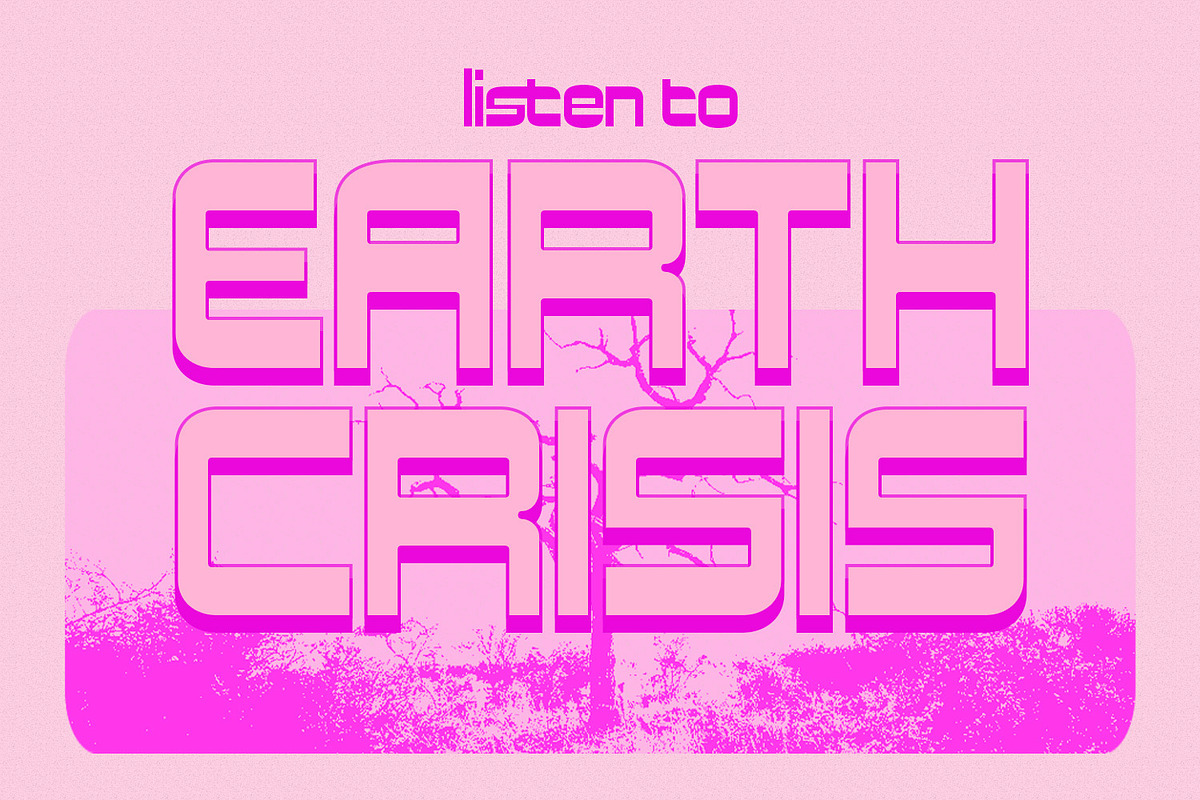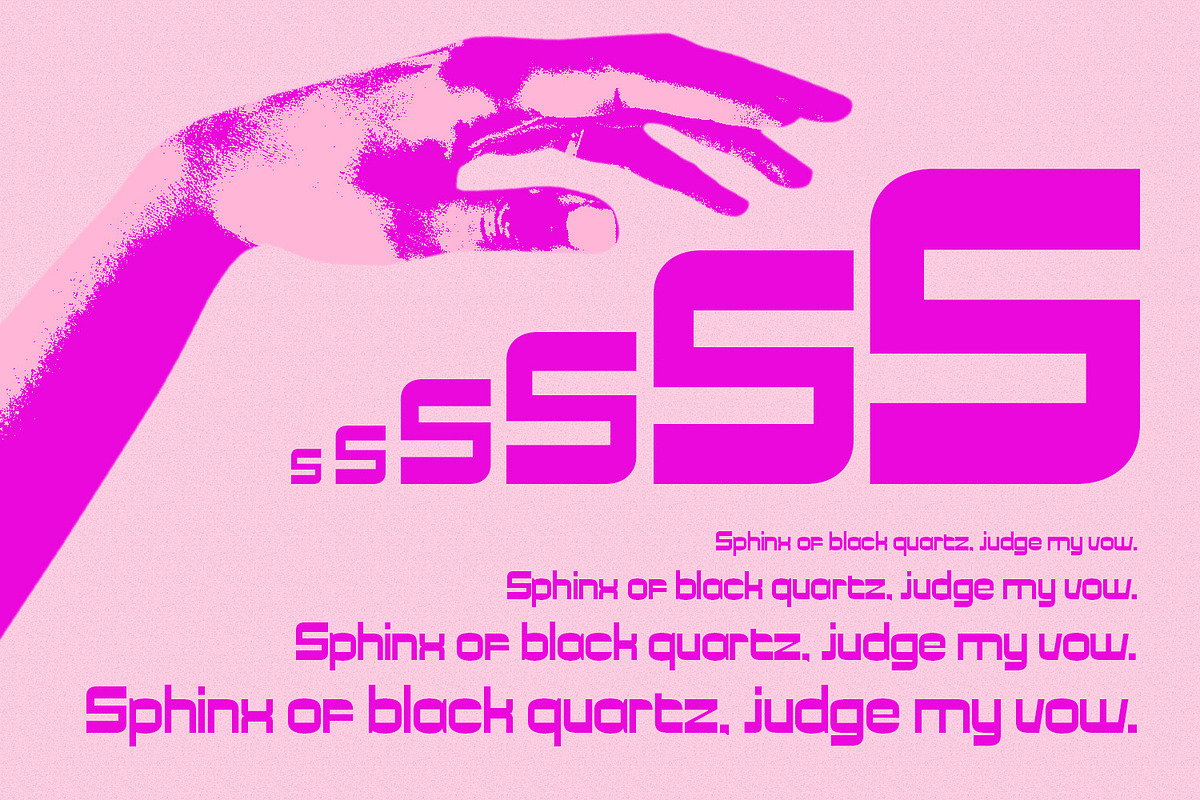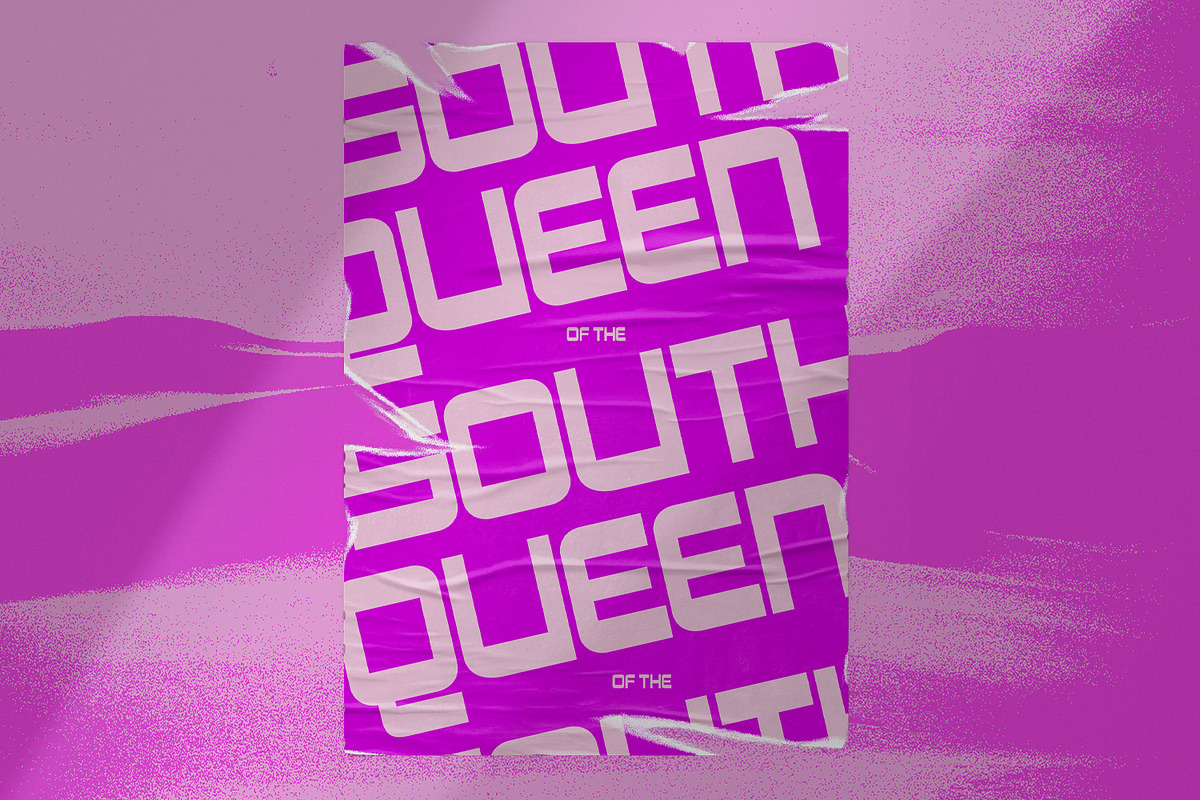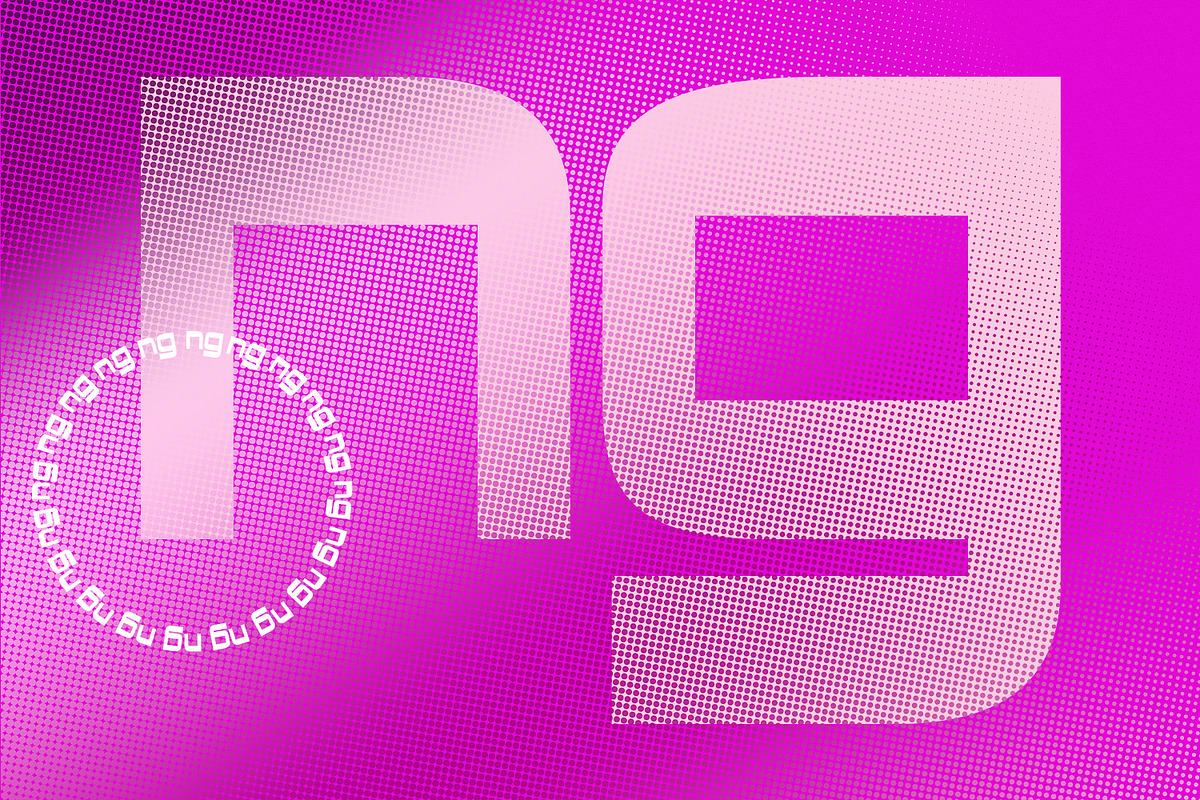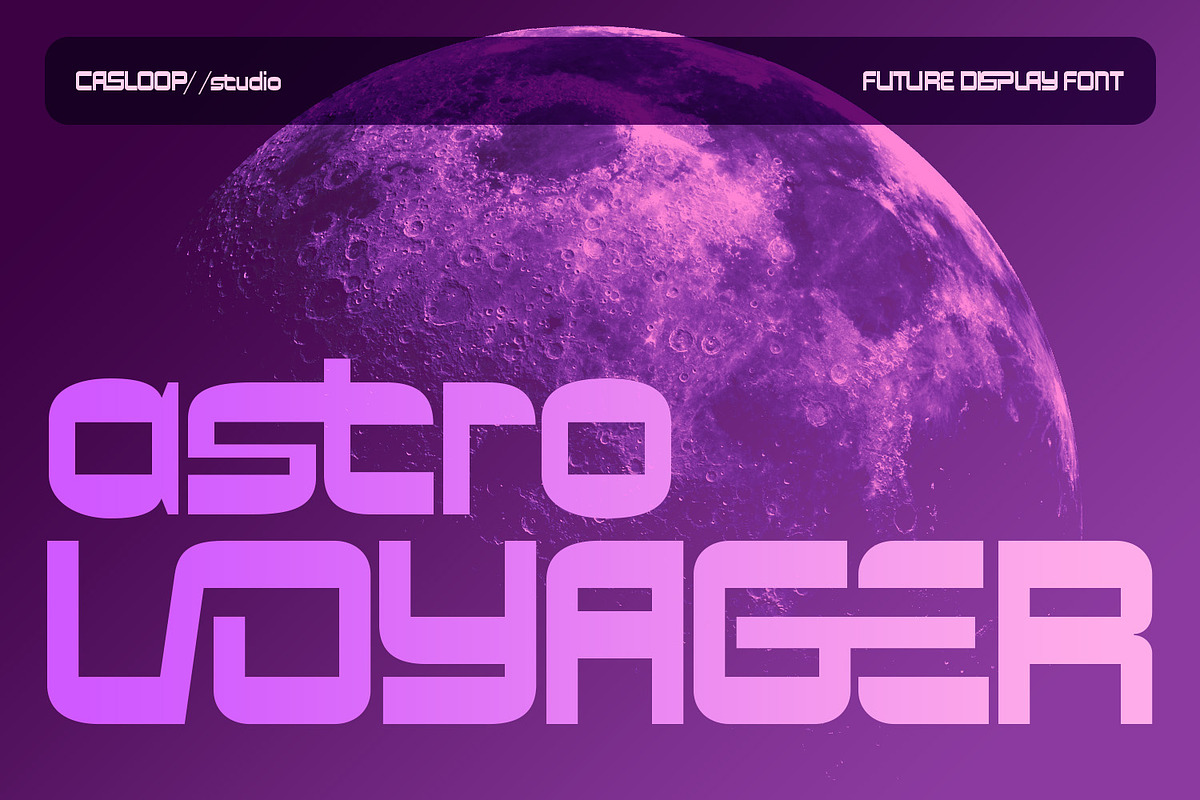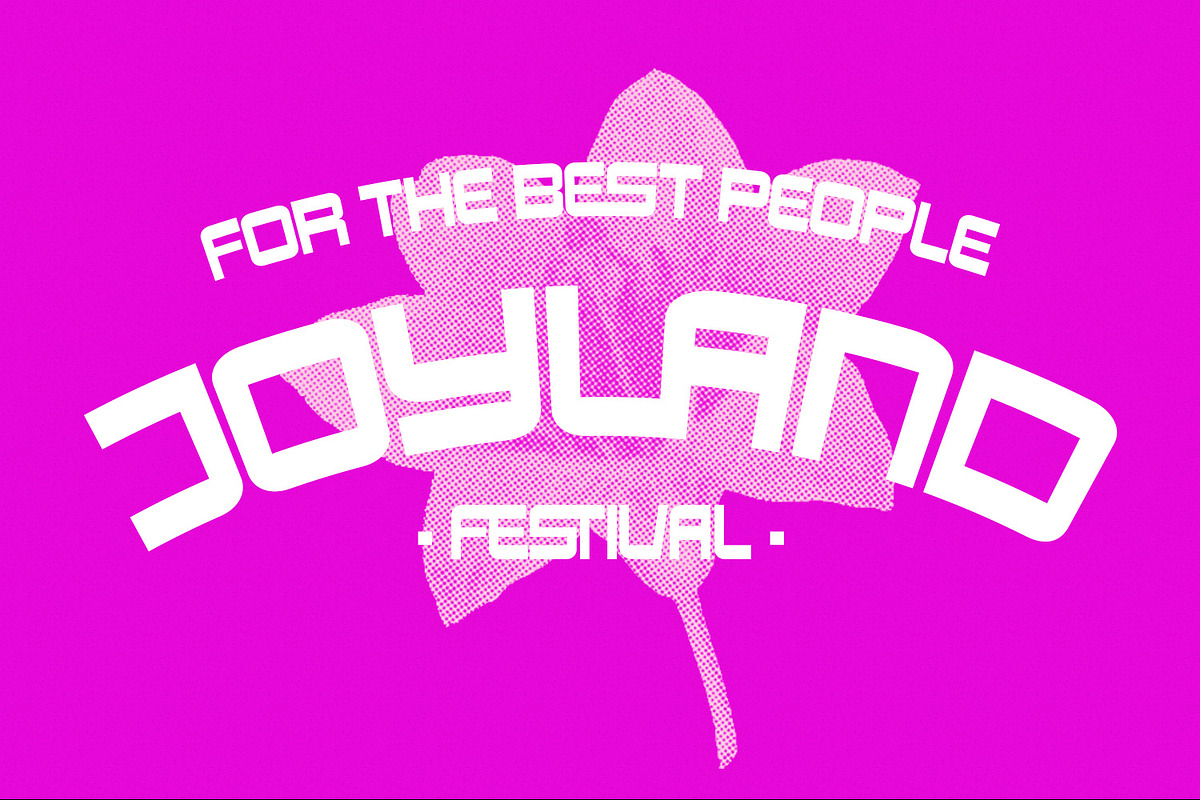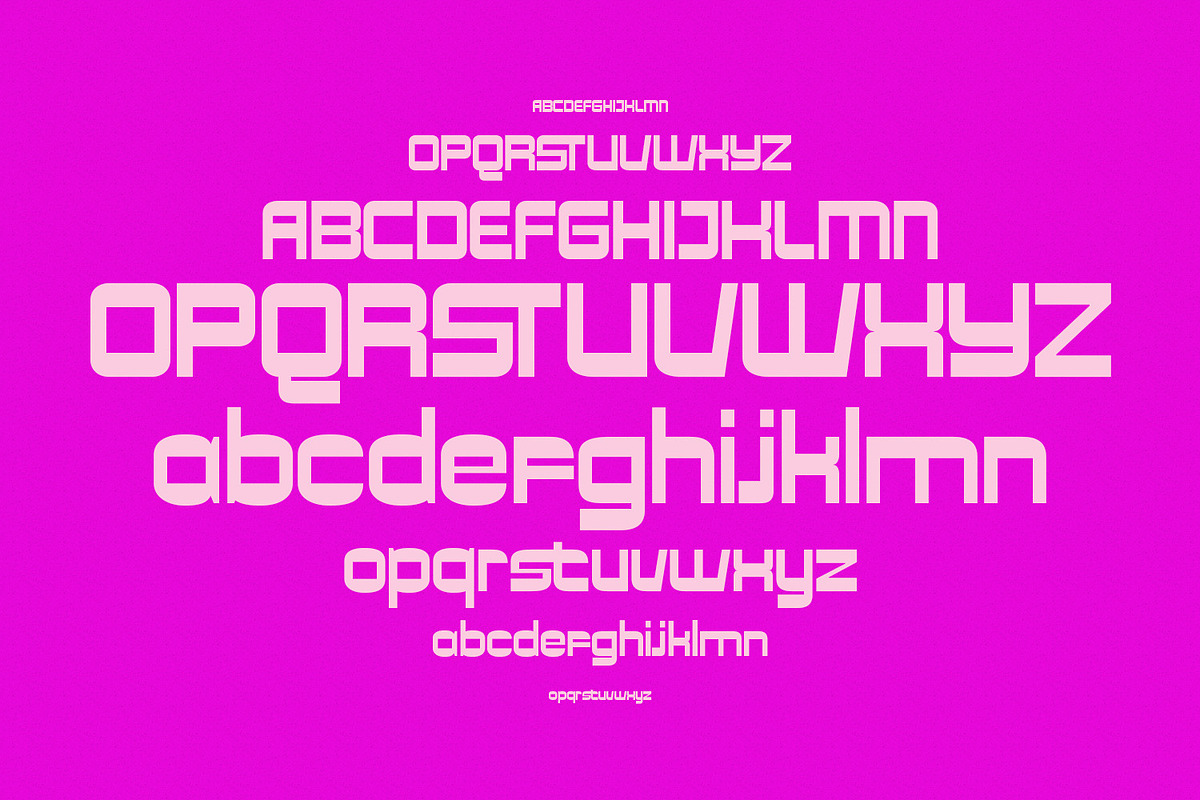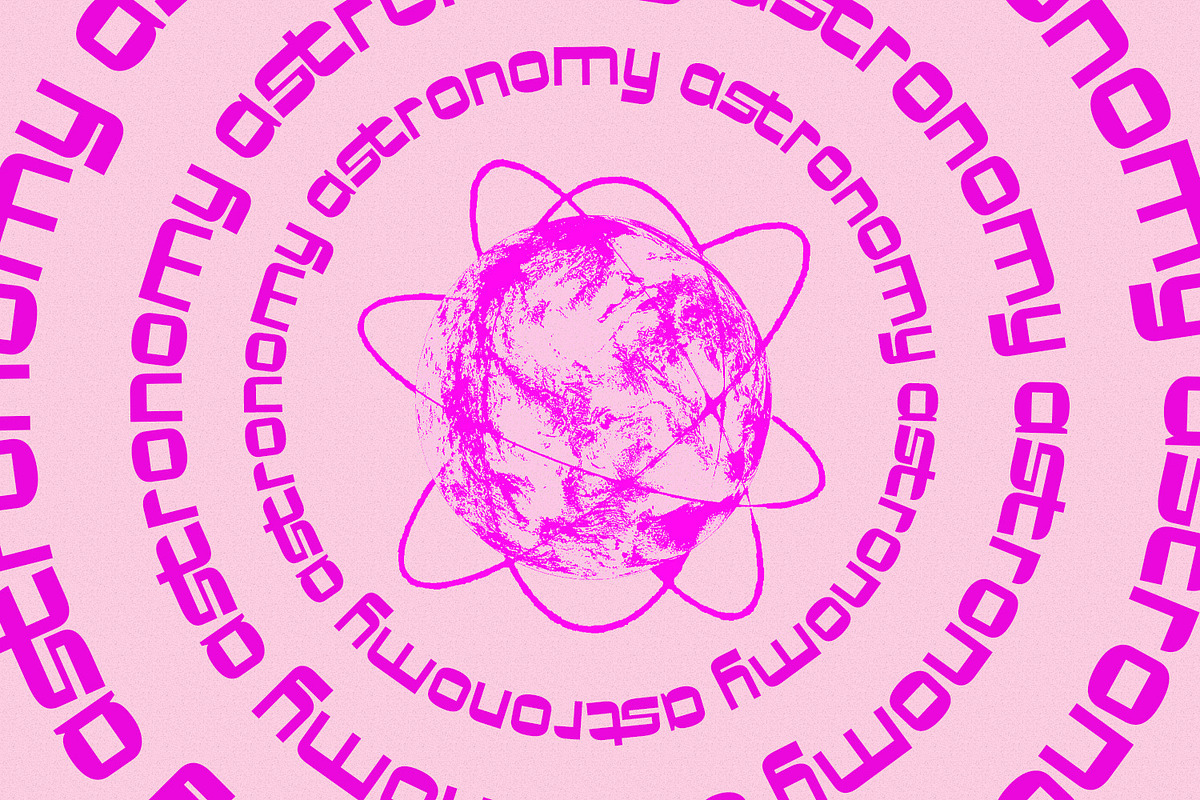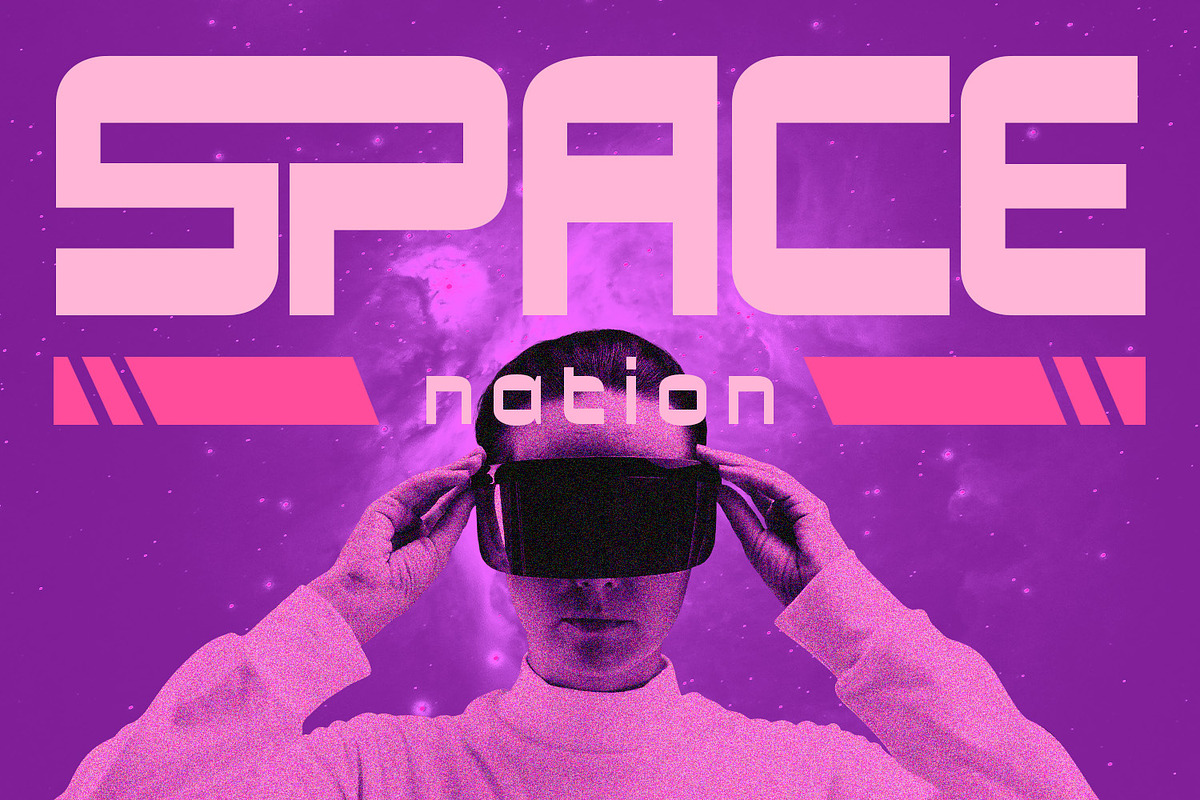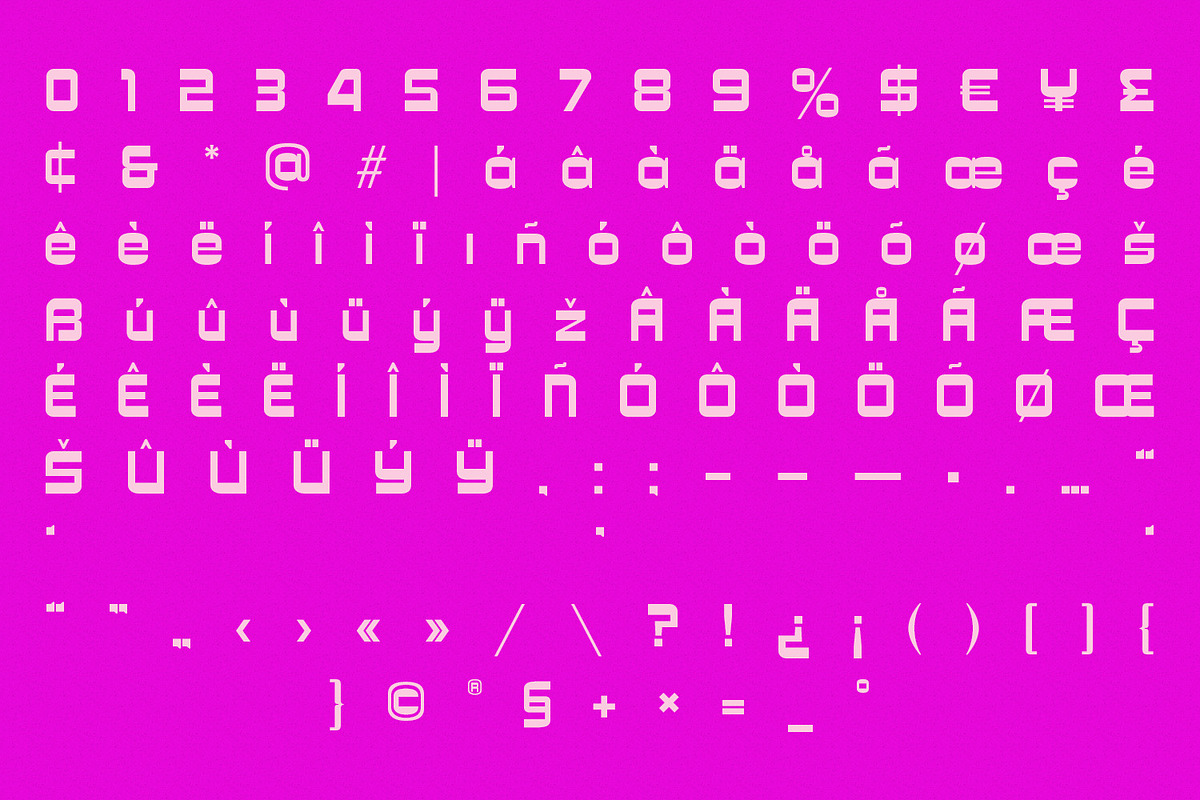
Astro Voyager
Introducing Astro Voyager
A Celestial Fusion of Tradition and Futuristic Exploration Astro Voyager, an Experimental Space Sans Serif font, seamlessly blends cosmic authenticity and futuristic charm. Inspired by celestial wonders and the exploration of the unknown, it introduces an otherworldly touch to modern design. The humanist natural flow of Astro Voyager captures the essence of space exploration integrated into Latin alphabets, resulting in a unique and original fusion.
Experience the mesmerizing impact of Astro Voyager across various applications, from websites, packaging, logos, and branding to album covers, 3D projects, and posters. This font doesn't just stun; it satisfies with its cosmic, eccentric twist and vibrant, futuristic energy. The visual consistency, memorability, and striking harmony make it an innovative and dynamic choice for modern design.
Astro Voyager is more than a font; it's an impactful expression of cosmic landscapes, interstellar vibes, and futuristic styles. Its versatility and expressiveness make it ideal for a multitude of contexts, creating a cohesive and understated aesthetic. The font's unique design, inspired by celestial elements, brings a level of innovation and exploration to the overall look.